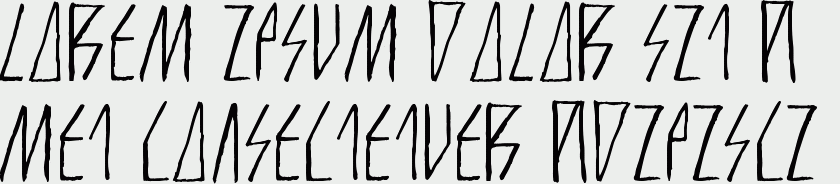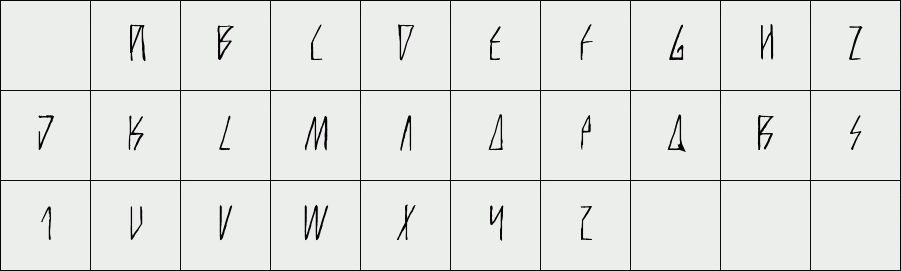
Surfer Blood
Surfer Blood Regular
Surfer Blood
/ Surfer Blood Regular
Surfer Blood Regular
Raw basic uppercase font for your punk ethic needs
Matthew Davidson